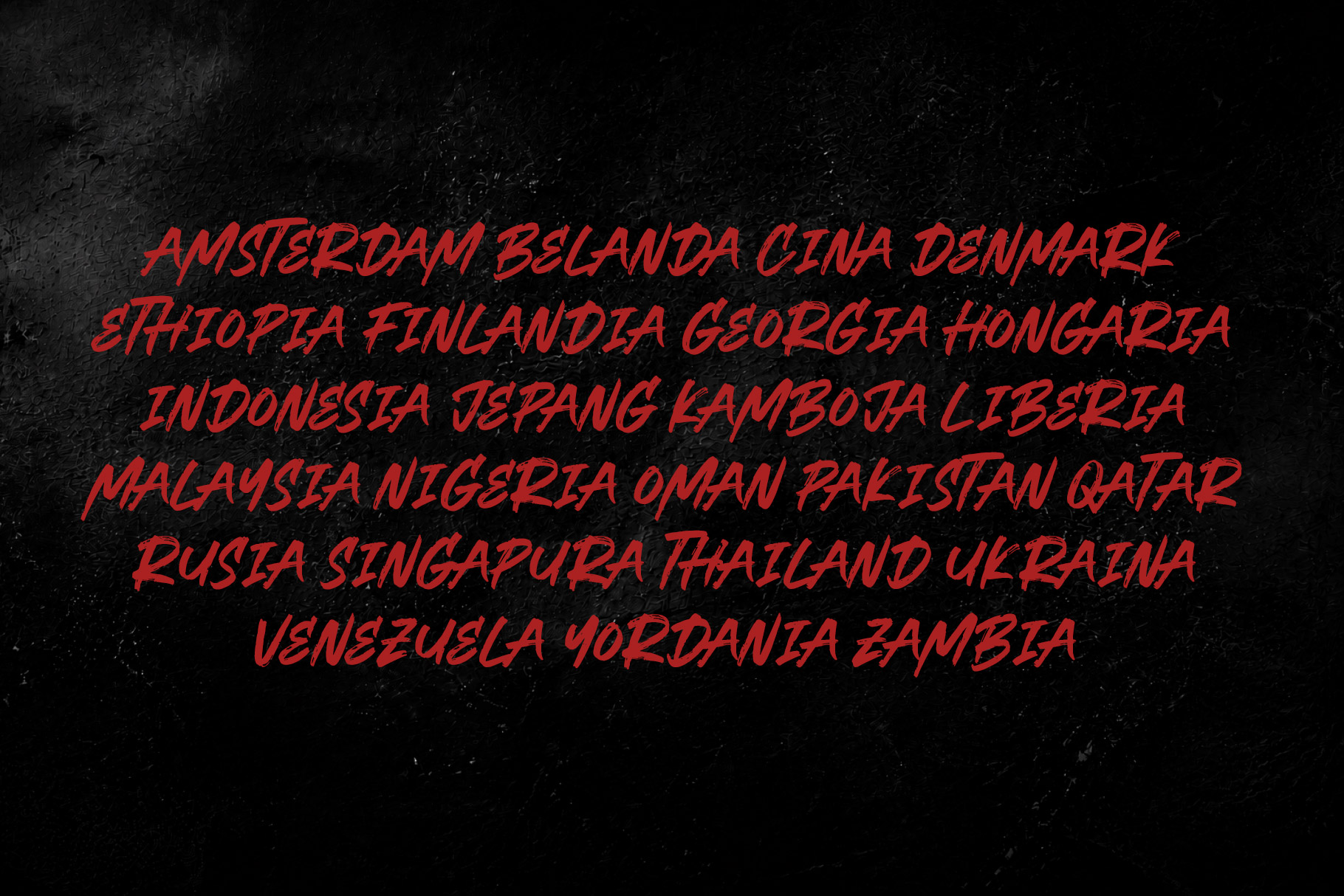
Night Kingdom is rough brush font delivers a powerful, raw, and expressive handmade character inspired by fast brush lettering, urban street culture, and energetic artistic movement. Its bold strokes create an authentic hand-painted appearance, featuring irregular edges, natural ink textures, sharp corners, uneven thickness, and spontaneous brush marks that give every letter a distinctive personality. The dynamic letterforms flow with strong movement, creating an energetic visual rhythm while maintaining excellent readability and impact. Night Kingdom is a perfectly choice for any creative endeavor, creating, modern, lifestyle design such as logotype, title, cover, branding, invitations, display and magazine, social media posts, advertisements, printed quotes, product packaging, corporate brand, product designs, labels, photography, watermarks, special events and any other project with modern touch.
Night Kingdom Rough Brush Font